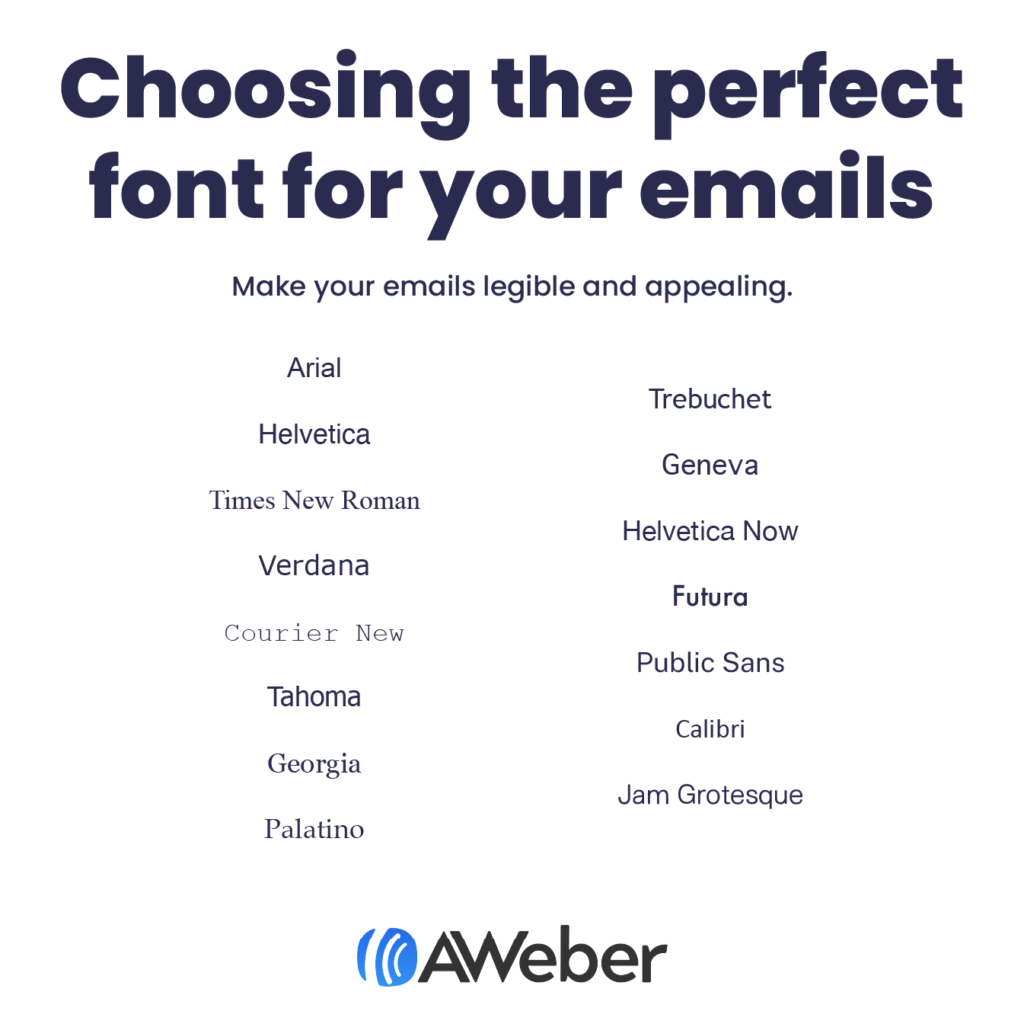
Best Fonts For Email Marketing
Best Fonts For Email Marketing - Web best fonts for email marketing campaigns. Web arial (sans serif) and times new roman (serif) are the most popular web safe fonts. Web the best font size for email is 12 to 16 points. Serif font designs include a small serif or. Web the two main types of font to consider for your email content are serif and sans serif. 10 best fonts for email design. Web this guide will reveal some of the best fonts for email and some fonts you can use for your email marketing. Pick a font that looks attractive and readable in this range. How to optimize your fonts for email.
10 best fonts for email design. Web this guide will reveal some of the best fonts for email and some fonts you can use for your email marketing. Pick a font that looks attractive and readable in this range. Web best fonts for email marketing campaigns. Web the two main types of font to consider for your email content are serif and sans serif. How to optimize your fonts for email. Web the best font size for email is 12 to 16 points. Web arial (sans serif) and times new roman (serif) are the most popular web safe fonts. Serif font designs include a small serif or.
Web best fonts for email marketing campaigns. Serif font designs include a small serif or. Web the best font size for email is 12 to 16 points. Web this guide will reveal some of the best fonts for email and some fonts you can use for your email marketing. How to optimize your fonts for email. 10 best fonts for email design. Web arial (sans serif) and times new roman (serif) are the most popular web safe fonts. Pick a font that looks attractive and readable in this range. Web the two main types of font to consider for your email content are serif and sans serif.
10 Best Fonts for Email Design in 2022 [& Best Practices]
Web best fonts for email marketing campaigns. Pick a font that looks attractive and readable in this range. Web arial (sans serif) and times new roman (serif) are the most popular web safe fonts. How to optimize your fonts for email. Web the best font size for email is 12 to 16 points.
10 Best Fonts for Email Design in 2022 [& Best Practices]
Web best fonts for email marketing campaigns. How to optimize your fonts for email. Web arial (sans serif) and times new roman (serif) are the most popular web safe fonts. Web the best font size for email is 12 to 16 points. Web this guide will reveal some of the best fonts for email and some fonts you can use.
Best fonts for emails How to make your emails look great and easy to
Serif font designs include a small serif or. Web this guide will reveal some of the best fonts for email and some fonts you can use for your email marketing. How to optimize your fonts for email. Web the best font size for email is 12 to 16 points. Web arial (sans serif) and times new roman (serif) are the.
10 Best Fonts for Email Design in 2022 [& Best Practices]
Web this guide will reveal some of the best fonts for email and some fonts you can use for your email marketing. How to optimize your fonts for email. Web arial (sans serif) and times new roman (serif) are the most popular web safe fonts. Web best fonts for email marketing campaigns. 10 best fonts for email design.
10 Best Fonts for Email Design in 2022 [& Best Practices]
Web this guide will reveal some of the best fonts for email and some fonts you can use for your email marketing. Web best fonts for email marketing campaigns. How to optimize your fonts for email. Web arial (sans serif) and times new roman (serif) are the most popular web safe fonts. Pick a font that looks attractive and readable.
Essential Guide to Choosing the Best Font for Emails Marketing
Pick a font that looks attractive and readable in this range. 10 best fonts for email design. Web arial (sans serif) and times new roman (serif) are the most popular web safe fonts. Serif font designs include a small serif or. Web the best font size for email is 12 to 16 points.
How to Choose the Best Font to Use for Email Marketing Campaigns
Web best fonts for email marketing campaigns. Web arial (sans serif) and times new roman (serif) are the most popular web safe fonts. 10 best fonts for email design. How to optimize your fonts for email. Web the best font size for email is 12 to 16 points.
How to Choose the Best Fonts for Email Marketing Email Design
Web arial (sans serif) and times new roman (serif) are the most popular web safe fonts. Serif font designs include a small serif or. Web the two main types of font to consider for your email content are serif and sans serif. How to optimize your fonts for email. Web the best font size for email is 12 to 16.
Email Typography 8 Best Fonts for Email (And Custom Email Font Ideas
Web best fonts for email marketing campaigns. Serif font designs include a small serif or. Web arial (sans serif) and times new roman (serif) are the most popular web safe fonts. How to optimize your fonts for email. Pick a font that looks attractive and readable in this range.
The Best Website Fonts and How to Choose the Right Ones
Serif font designs include a small serif or. Web arial (sans serif) and times new roman (serif) are the most popular web safe fonts. How to optimize your fonts for email. Web the best font size for email is 12 to 16 points. Web this guide will reveal some of the best fonts for email and some fonts you can.